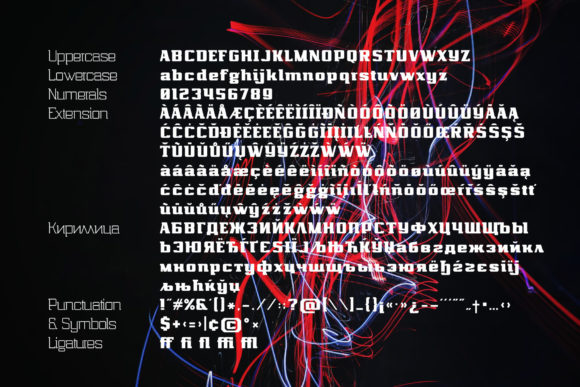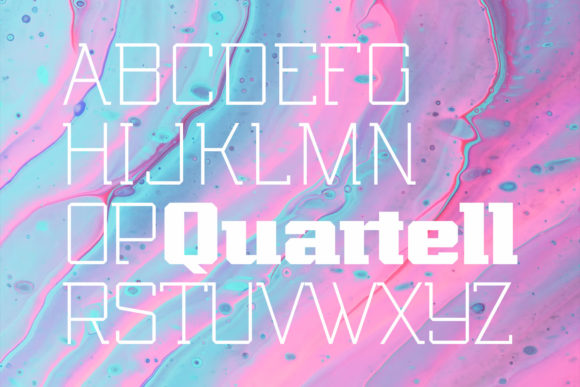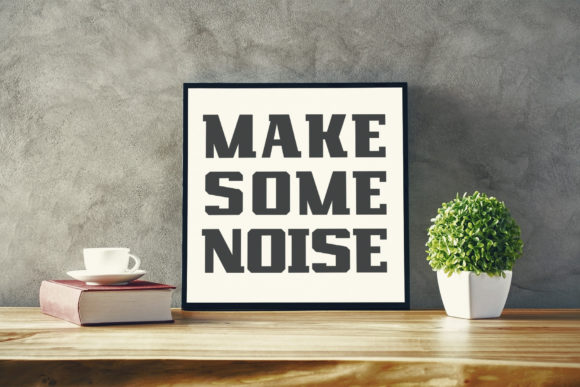
Introduction to Quartell Variable Font
Do you remember that moment when a single font choice transformed your entire design project? For many of us, it’s the spark that ignites our creativity and sets our work apart. Today, we’re excited to share with you a game-changing font that’s about to elevate your design game: the Quartell Variable Font.
This stunning slab serif font is more than just a pretty face – it’s a versatile design resource that’s perfect for creating bright captions and unforgettable logos. With its incredibly unique style, Quartell Variable Font is sure to make your designs stand out from the crowd. Whether you’re working on a personal project or a high-profile client, this font is an absolute must-have in your design toolkit.
Key Features of Quartell Variable Font
- High-quality, professional design resource ideal for creative projects
- Unique characteristics include a wide range of weights and styles, making it perfect for multi-level typography
- Variable font technology allows for smooth font scaling and easy customization
Honest Review: Quartell Variable Font
As a designer, I’m always on the lookout for high-quality design resources that can elevate my creative projects. Recently, I had the chance to work with the Quartell Variable Font, and I must say, it’s been a game-changer.
What works well: ✨ The Quartell Variable Font is incredibly versatile, with a wide range of styles and weights that can be easily adjusted to suit any design need. The font also has a sleek, modern aesthetic that looks great on transparent backgrounds. I’ve used it for everything from logos to icons, and it’s always delivered.
- High-quality design: The font is incredibly well-designed, with a focus on clean lines and a professional look.
- Easy to use: The Quartell Variable Font is incredibly easy to use, even for designers who are new to variable fonts.
Limitations: ⚠️ While the Quartell Variable Font is incredibly versatile, it may not be the best choice for designers who need a font with a more traditional look. Additionally, some users may find the font’s weight range to be a bit limited.
Overall, I’m thoroughly impressed with the Quartell Variable Font. It’s a high-quality design resource that’s perfect for creative projects of all kinds. If you’re looking for a versatile, easy-to-use font that can help take your designs to the next level, I highly recommend giving it a try.
The Quartell Variable Font is suitable for a variety of design projects, including logos, branding materials, and digital assets. Its versatility makes it an ideal choice for designers and creatives.
Experiment with different font sizes and styles to achieve the desired effect. Additionally, consider combining Quartell Variable Font with other design elements to create a unique and engaging visual identity.